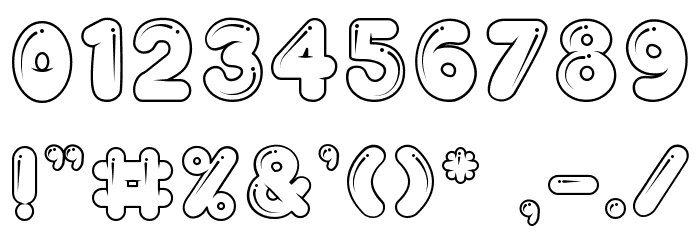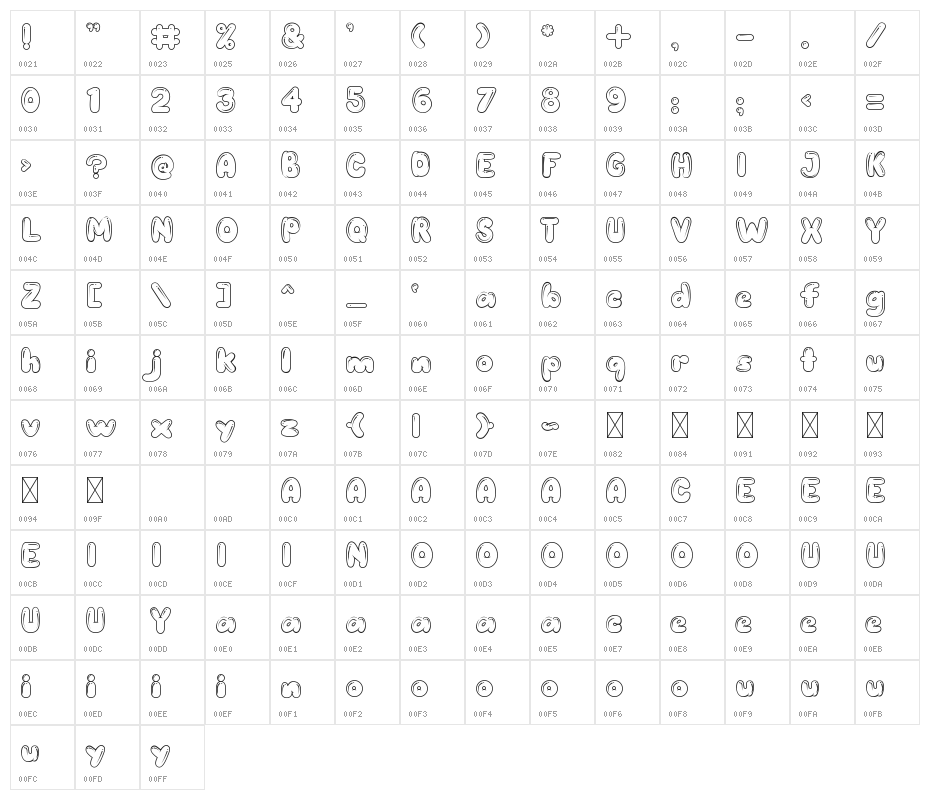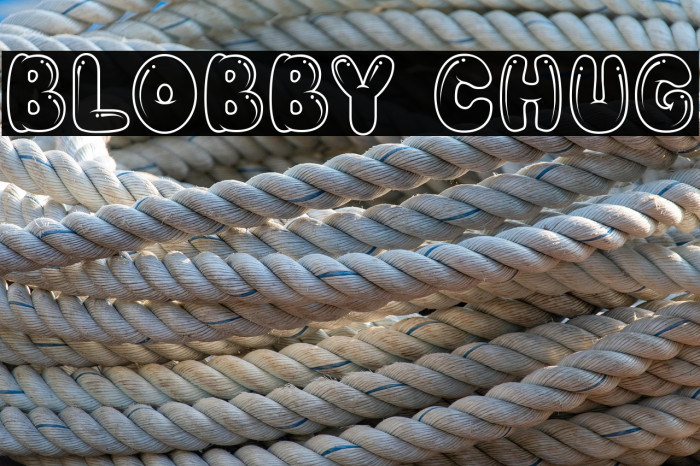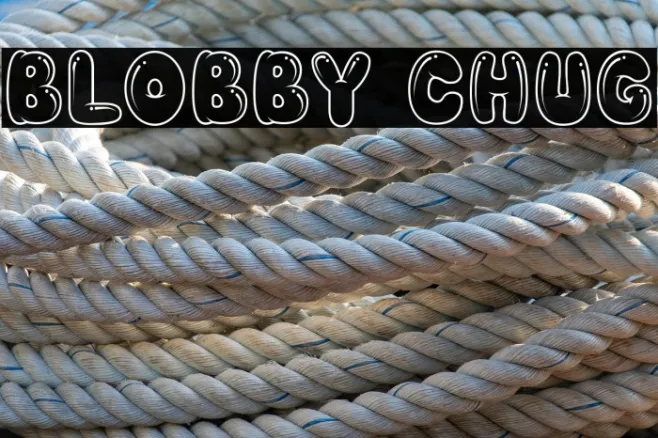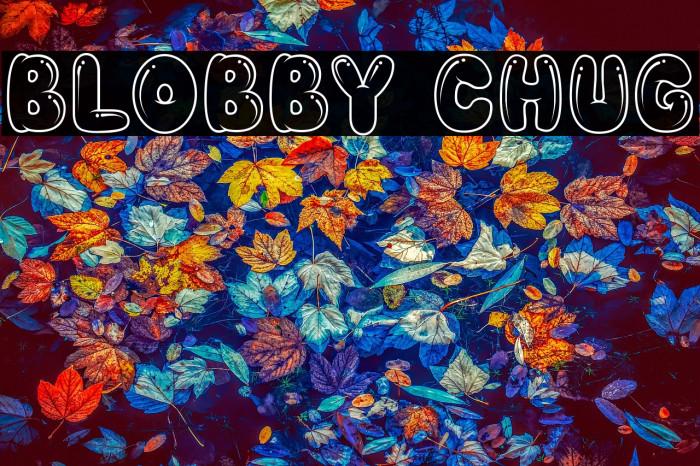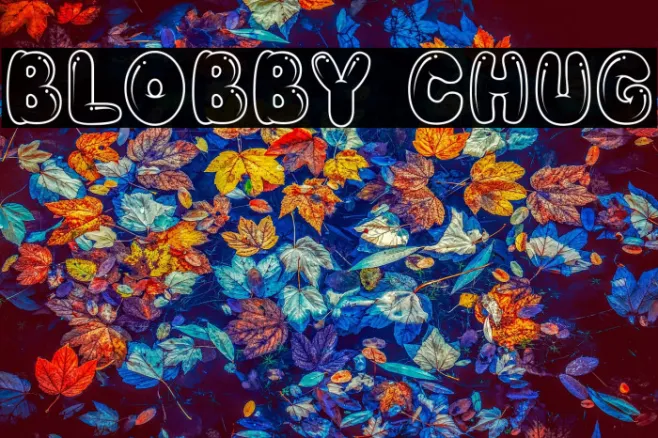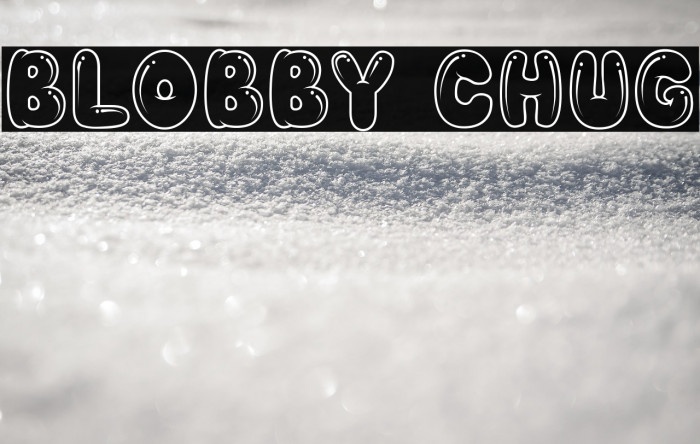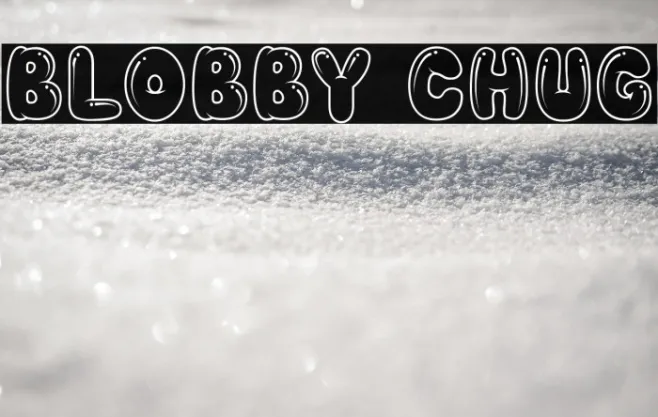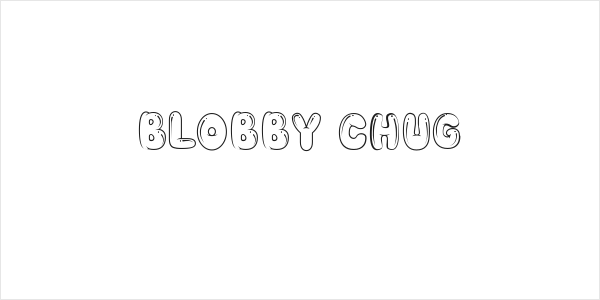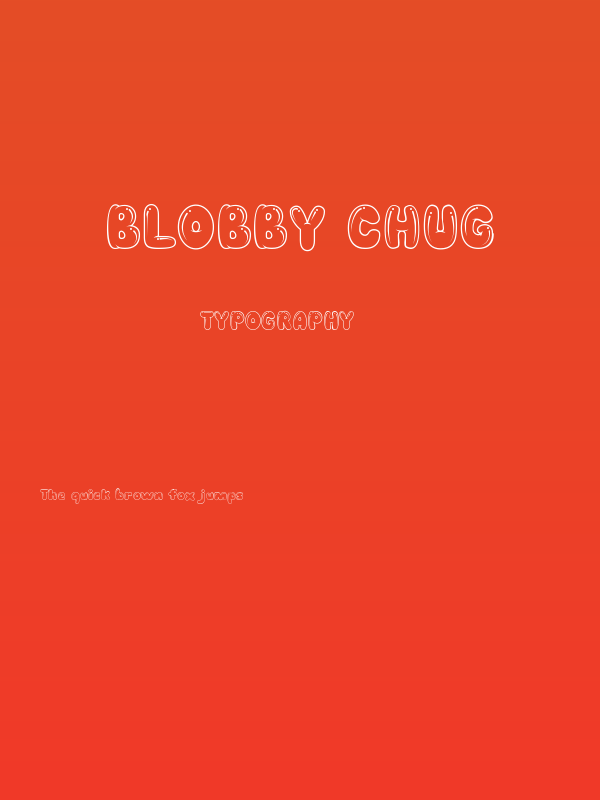
BLOBBY CHUG Font
BLOBBY CHUG Description
This playful and whimsical font features rounded, bubbly characters that give off a fun and lighthearted vibe. Each letter is outlined, creating a hollow effect that adds to its unique charm. The font maintains a consistent thickness throughout, with smooth curves and a slightly irregular shape that enhances its informal style. The characters are well-spaced, ensuring readability while maintaining their quirky appearance. This font is perfect for projects that require a touch of humor and creativity, such as children's books, playful branding, or party invitations.
| Use Case | Logos, Headlines, Creative designs |
| Proposed Projects | Ideal for children's books, playful branding, party invitations, and creative designs. |